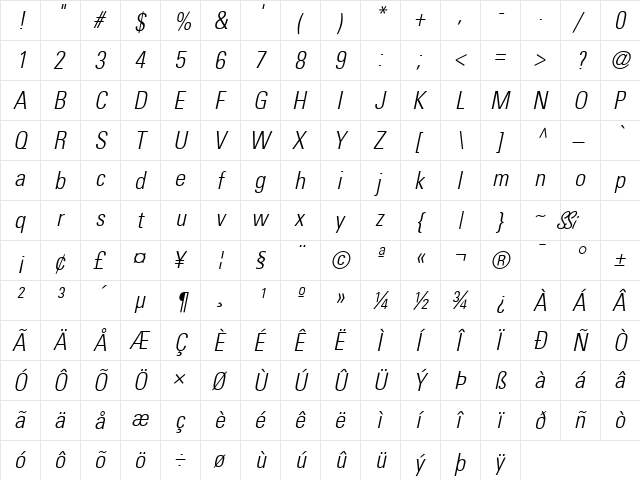
Nova Light Condensed SSi Light Condensed Italic Font Preview
| Style | Light Condensed Italic |
Design Context for Nova Light Condensed SSi Typeface
Nova Light Condensed SSi is a composed and adaptable typeface that performs quietly and consistently across a wide range of design contexts. The slanted form adds forward momentum and visual energy. Its slender proportions lend an understated elegance to any composition. The condensed width makes it efficient for tight spaces without sacrificing legibility.